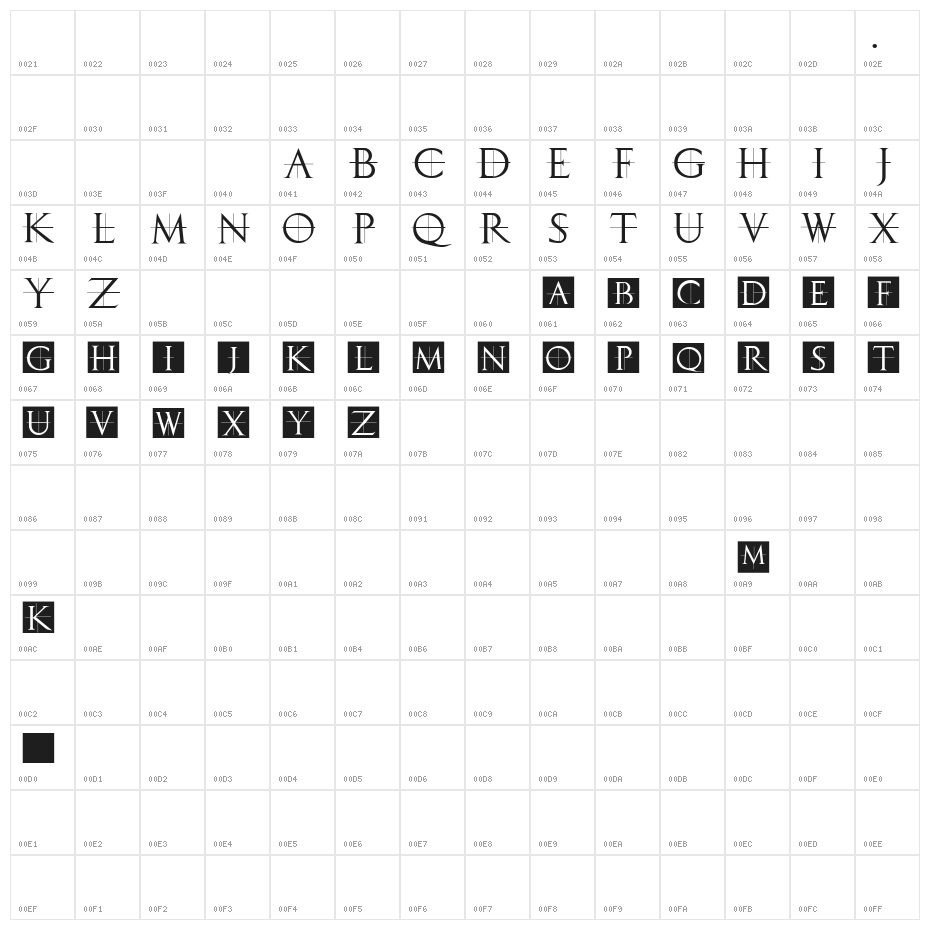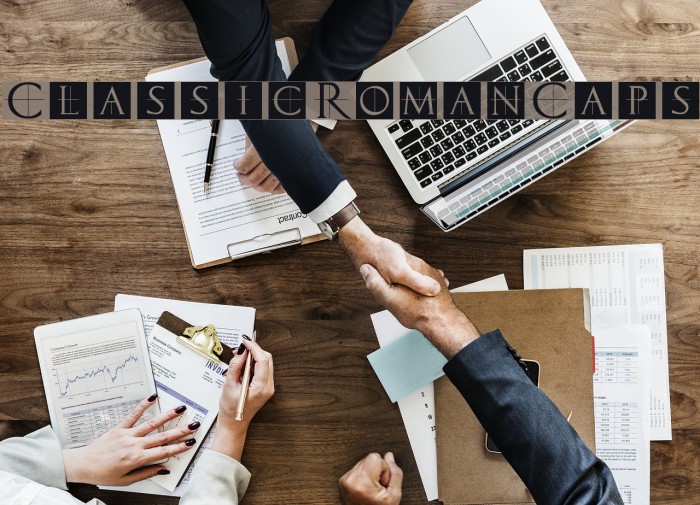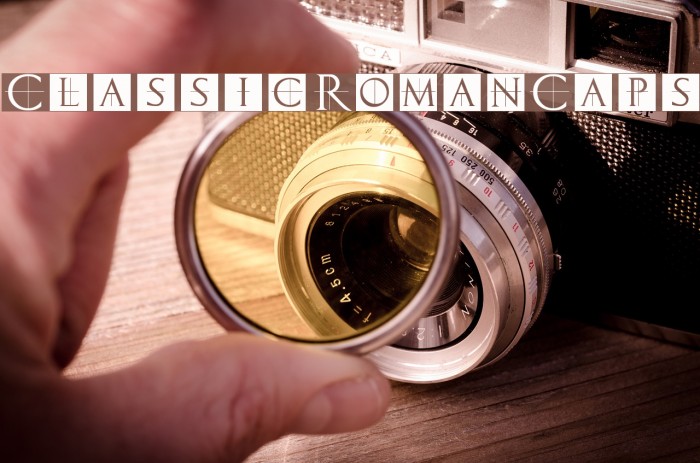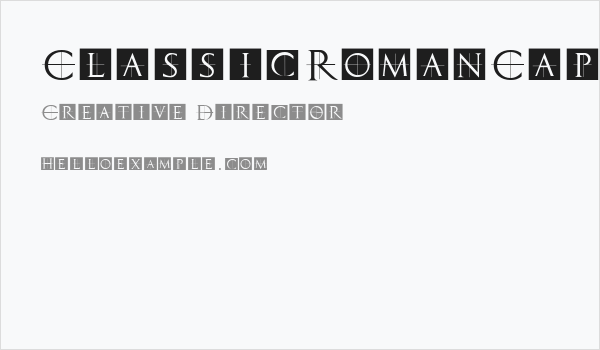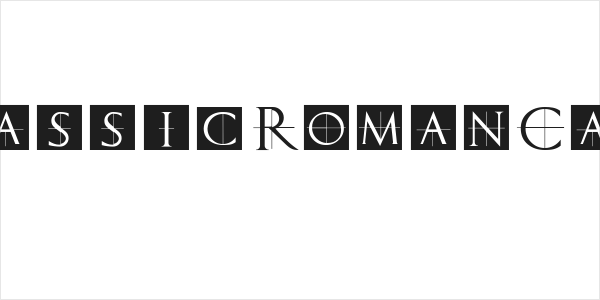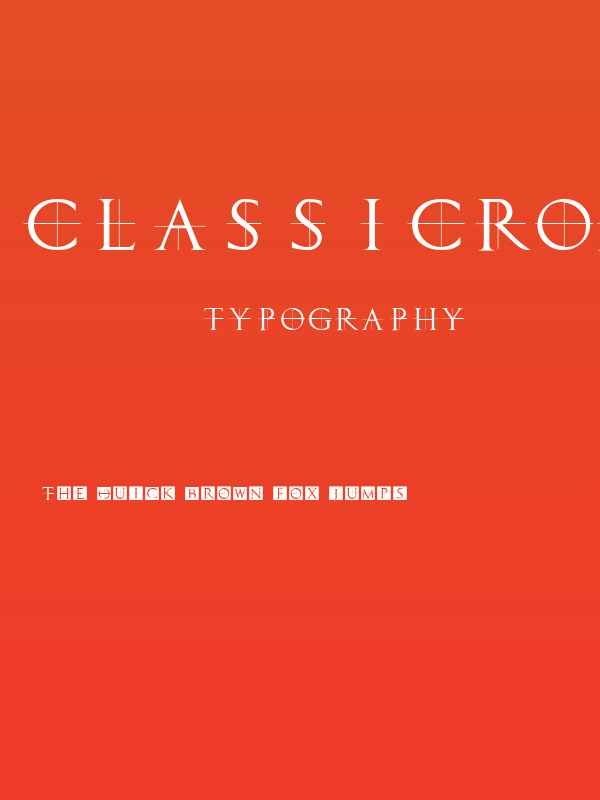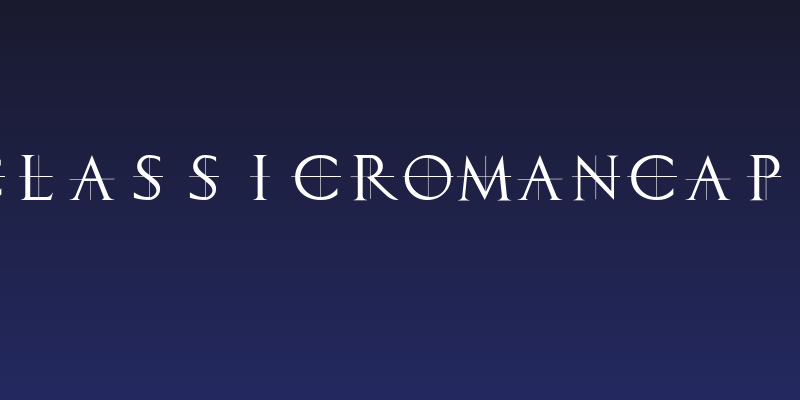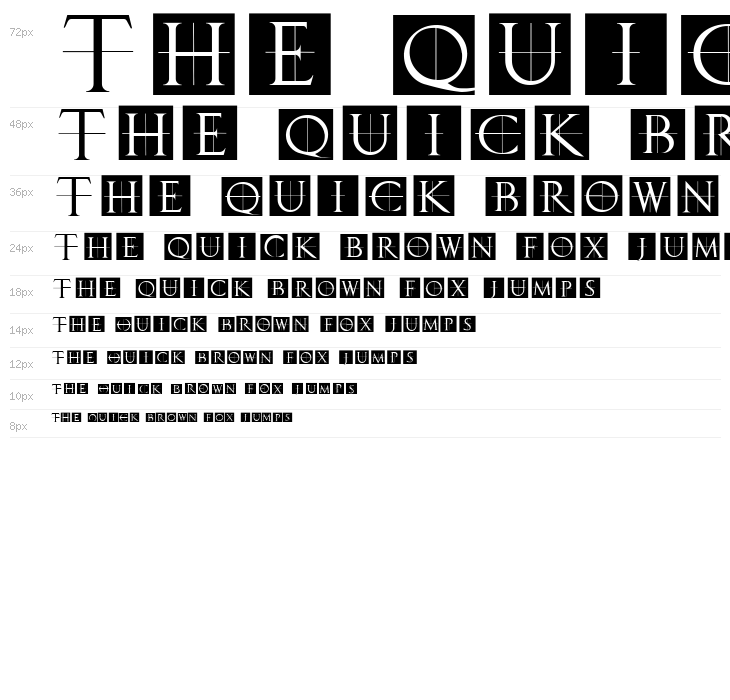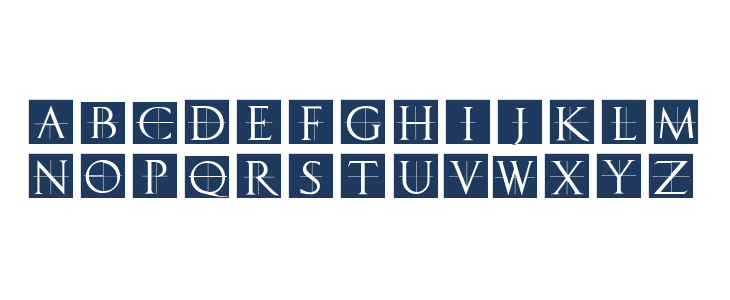
ClassicRomanCaps Font
ClassicRomanCaps Description
This font features a classic and elegant design, reminiscent of ancient Roman inscriptions. The characters are adorned with intricate serifs and exhibit a high level of detail, making them stand out with a sophisticated flair. The uppercase letters are particularly striking, with a balanced proportion and a sense of grandeur. The font's style is both timeless and versatile, suitable for a variety of design applications where a touch of historical elegance is desired. The overall appearance is bold and commanding, yet it maintains a refined and polished look.
| Overall Style | Classic |
| Proposed Projects | Ideal for historical-themed projects, formal invitations, book covers, and branding that requires a touch of sophistication. |